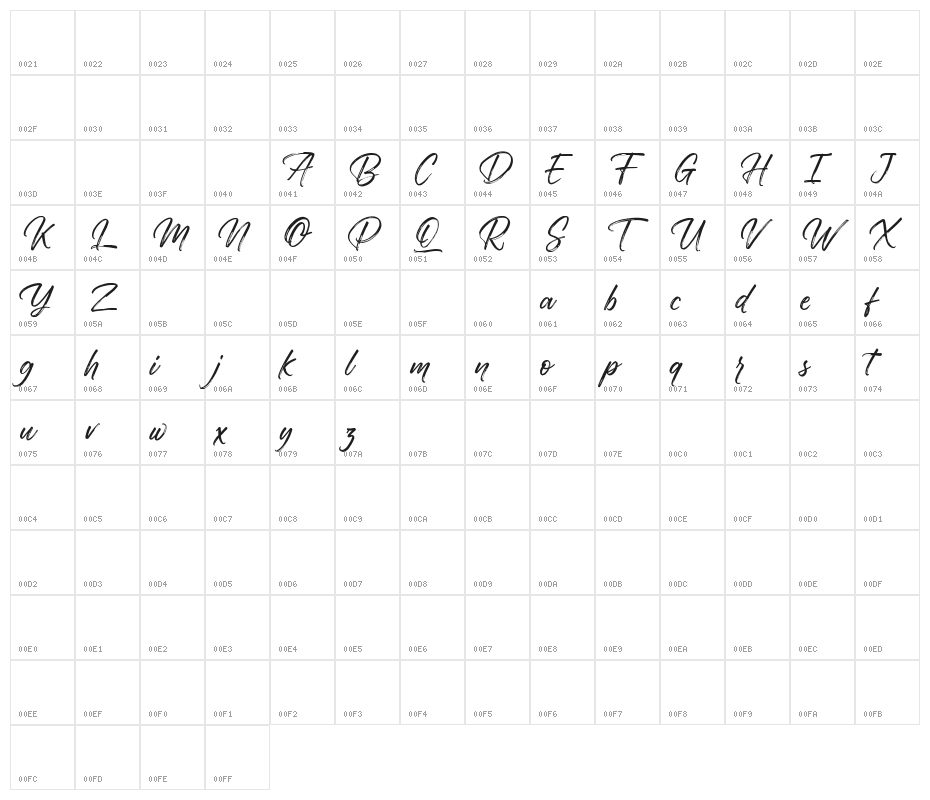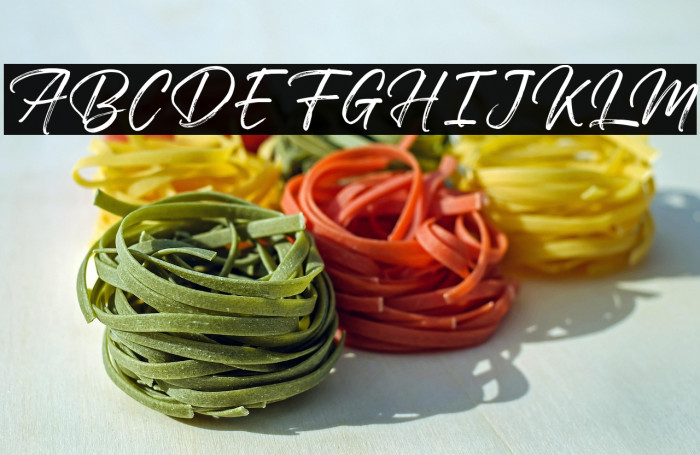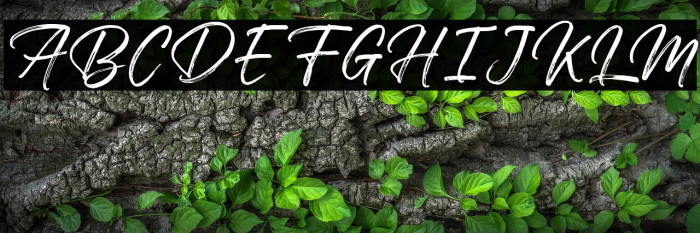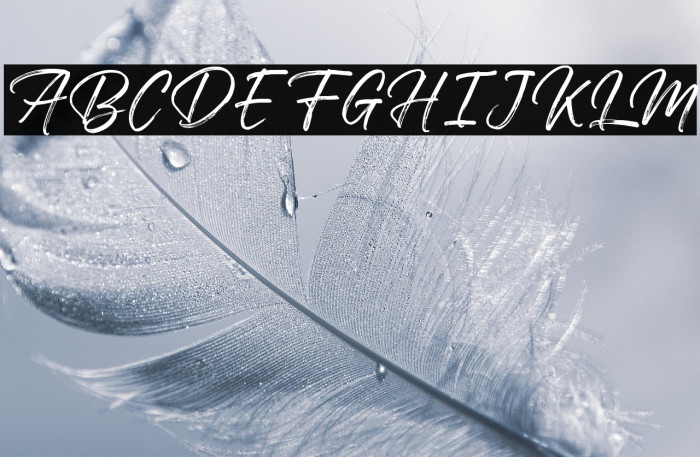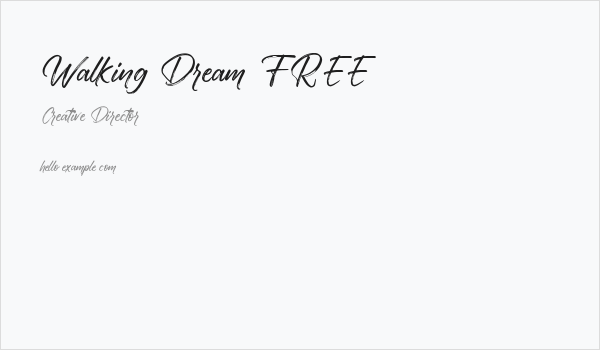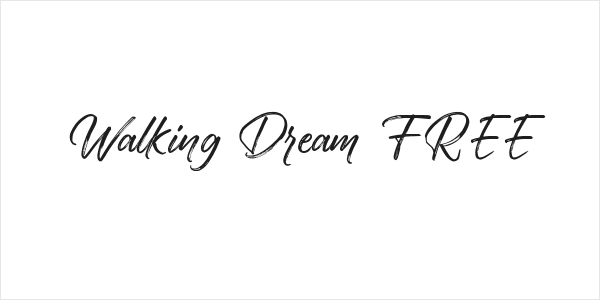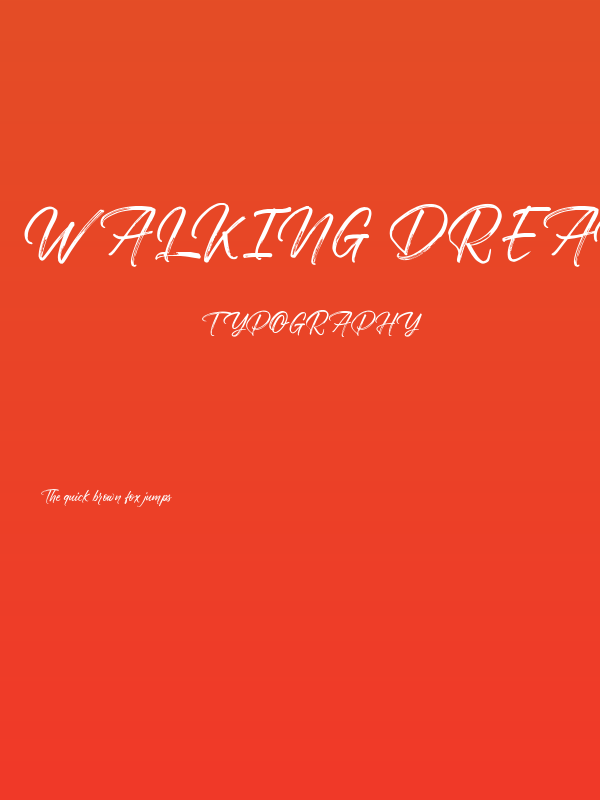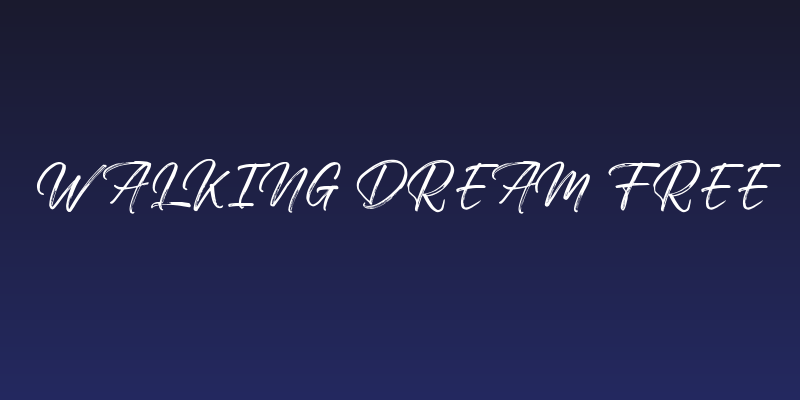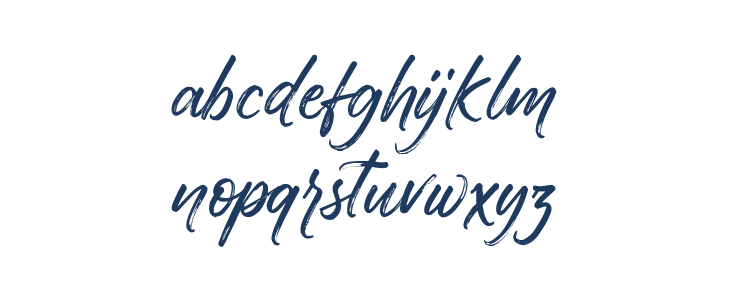
Walking Dream FREE Font
Walking Dream FREE Description
This font exhibits a dynamic and expressive style, characterized by its fluid, cursive script that mimics the natural flow of handwriting. The letters are elegantly connected, with varying stroke widths that add a sense of movement and energy. The uppercase letters are slightly more formal, while the lowercase letters maintain a casual, artistic flair. The strokes are bold and confident, with a slight slant that enhances the handwritten feel. This font is perfect for projects that require a personal touch, such as invitations, greeting cards, or branding materials that aim to convey creativity and individuality.